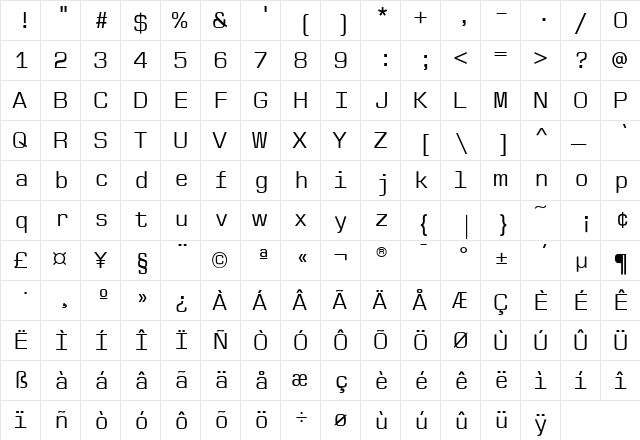
EurostileMonoEF Regular
Design Context for EurostileMonoEF Typeface
EurostileMonoEF brings the precise, column-aligned rhythm of monospaced typography to designs that value technical clarity and systematic order.
A natural fit for code editors, technical documentation, developer-focused branding, and terminal-inspired UI.
Pro Tip: Pair EurostileMonoEF with a proportional sans for UI contexts where code-style labels and regular body copy need to coexist.